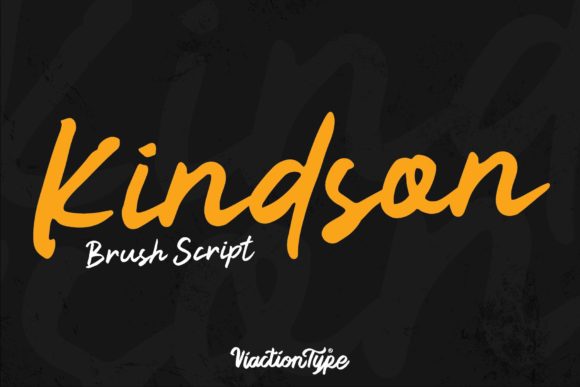
Introducing Kindson Font, the magnetic display font that awakens your designs with an allure like no other. Its handwritten style invites you on a journey of uniqueness, captivating audiences with its effortless flow and authenticity. Let Kindson be your creative companion, adding a touch of artistry to your boutique brand, photography, magazines, and more.
Indulge in the artistry of Kindson Font, crafted by the visionary Viaction Type.Co. This brush script font tantalizes with its expressive strokes, reminiscent of a calligrapher's hand. It dances across your designs, evoking a sense of spontaneity and personal connection. With Kindson, your words take on a new life, resonating with your audience on a deeper level.
Unlock the limitless possibilities of Kindson Font. Dive into a world of creativity, where your imagination knows no bounds. Whether it's designing captivating posters, creating eye-catching logos, or personalizing business cards, Kindson adds an enchanting touch that leaves a lasting impression. Its versatility knows no limits, making it the perfect font for expressing your unique style.
Experience the magnetism of Kindson Font today and elevate your designs to new heights. Let its handwritten charm cast a spell on your audience, captivating them with its elegance and authenticity. Embrace the power of Kindson and unleash your creativity, transforming your digital dreams into tangible masterpieces.